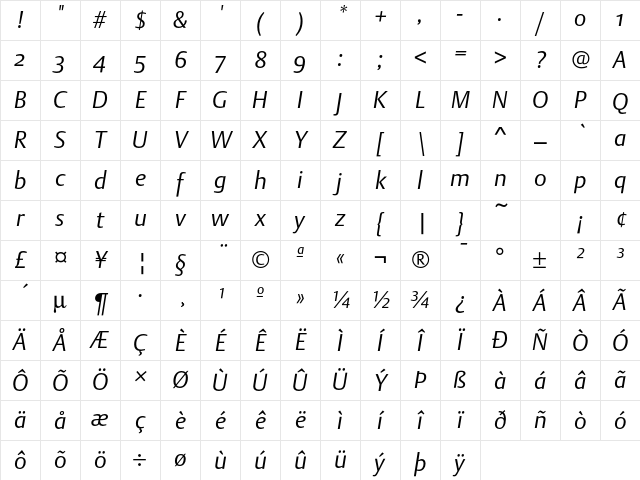
Complete DTL Argo ST Light Italic glyph index. Displaying only characters natively supported by DTL Argo ST Light Italic font.
DTL Argo is a composed and adaptable typeface that performs quietly and consistently across a wide range of design contexts. The slanted form adds forward momentum and visual energy. Its slender proportions lend an understated elegance to any composition.
Pro Tip: Use DTL Argo for emphasis, pull quotes, and subheadings where its slanted energy can add rhythm to the layout.